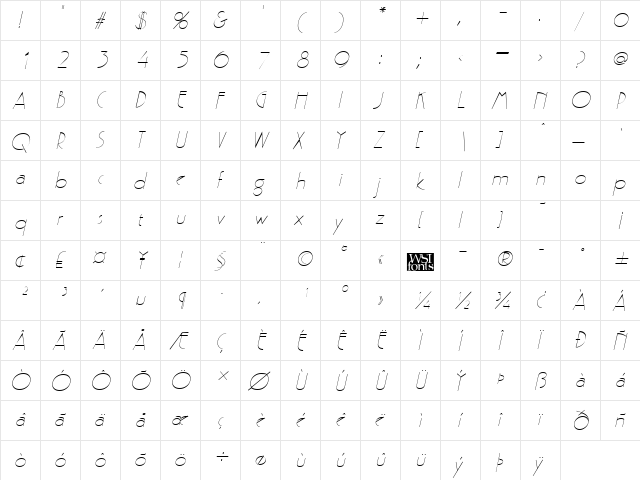
Gatsby Italic
Design Context for Gatsby Typeface
Gatsby takes a measured approach to typography — its balanced proportions and neutral character make it a reliable workhorse for both digital and print work. Its italic angle brings a sense of urgency and motion to the letterforms.
Pro Tip: Try Gatsby for annotation and caption copy alongside an upright companion — the contrast in angle creates a dynamic but ordered typographic system.